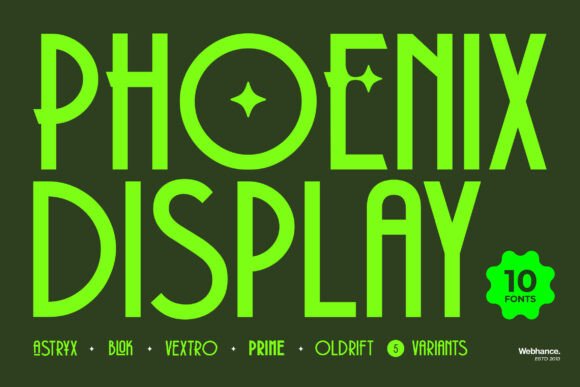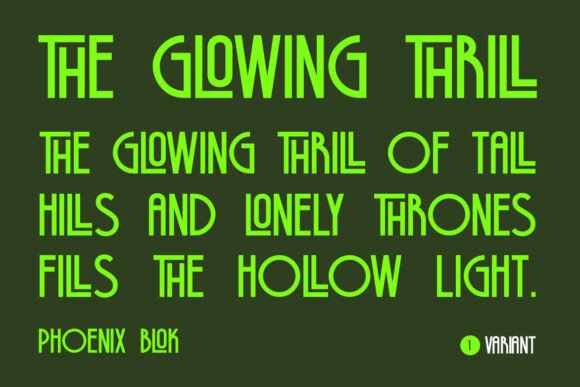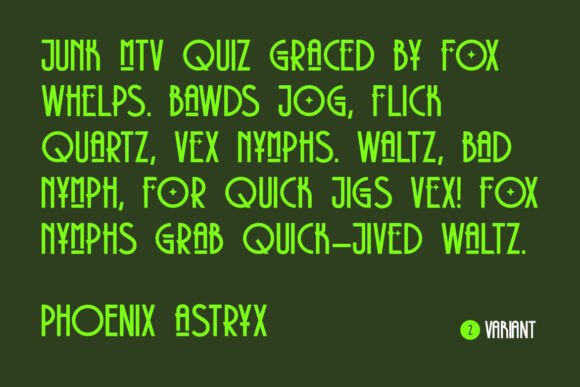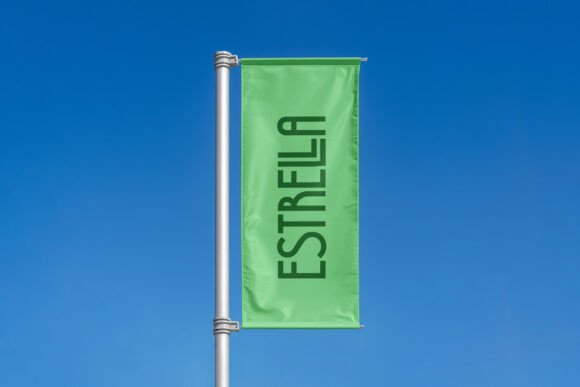
Phoenix Font
About the Phoenix Font
Let us introduce you to Phoenix Font, where timeless design meets modern craftsmanship. Phoenix Display Font is your ultimate choice when boldness and futuristic flair are essential. Designed with cosmic inspiration and modern geometry, Phoenix Display Font blends clean cuts, perfect circles, and stellar details to create a mesmerizing visual style. Whether you need sleek minimalism or rugged vintage charm, **this font family offers five exciting variants — Astryx, Blok, Vextro, Prime, and Oldrift** — ensuring every design project has its perfect match.
With **10 fonts and 5 stylistic variants**, Phoenix Display Font brings structure, creativity, and an unstoppable energy to your projects. Its versatility shines in branding, editorials, sci-fi posters, gaming titles, luxury packaging, and social media graphics. Each variant has been crafted to maintain visual consistency while offering a fresh voice, making it an indispensable tool for designers seeking impact and innovation.
Beyond just aesthetics, Phoenix Display Font was engineered for functionality and adaptability. Whether you’re creating standout headlines or immersive visual experiences, this typeface family ensures your message bursts through with cosmic brilliance. Experience how geometry, creativity, and boldness collide in one breathtaking package designed for the future.